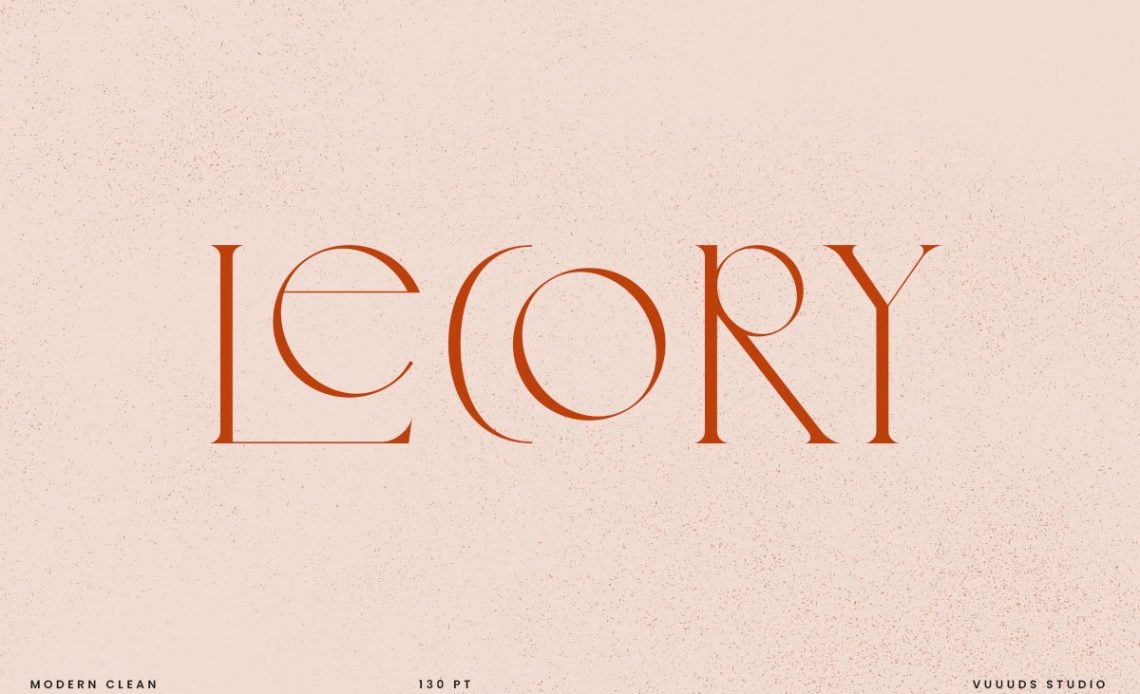
Looking for a modern and stylish serif font that will elevate your fashion-related designs to the next level? Look no further than Lecory Font! Created by the talented designer Agung Syaifudin, this font is the perfect choice for any project that needs a touch of sophistication.
Every single letter in Lecory has been meticulously crafted to ensure that it looks its best, making it an ideal choice for fashion-related projects such as clothing labels, logos, packaging, and more. With its beautiful alternate glyphs, you can create truly unique designs that stand out from the crowd.